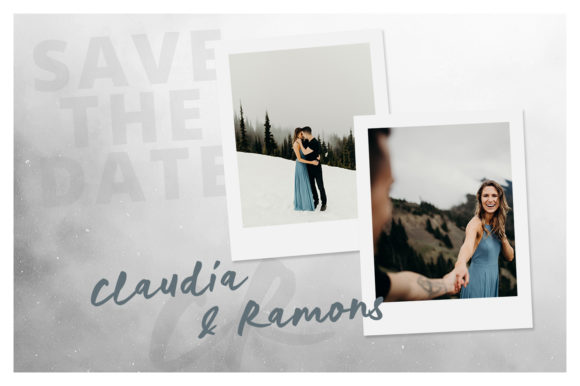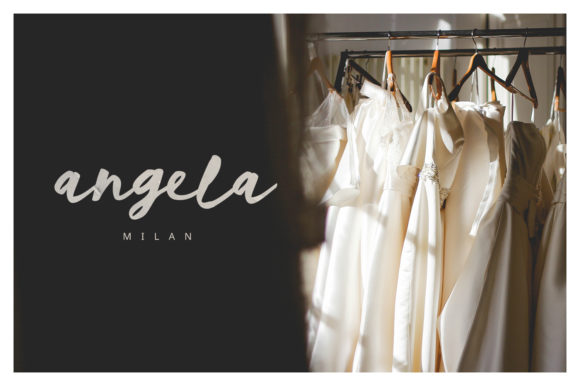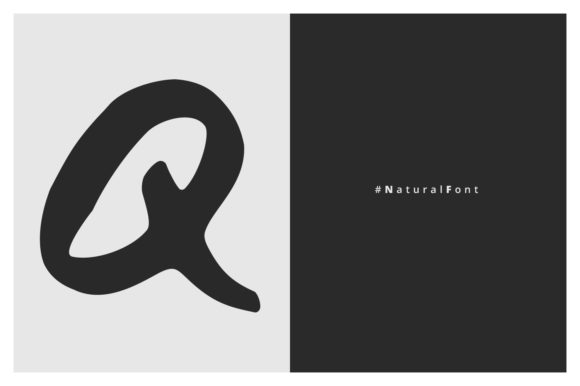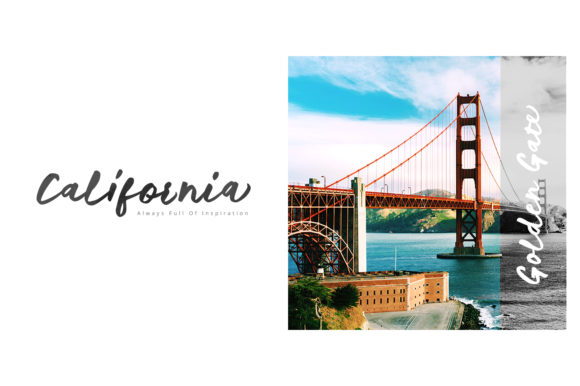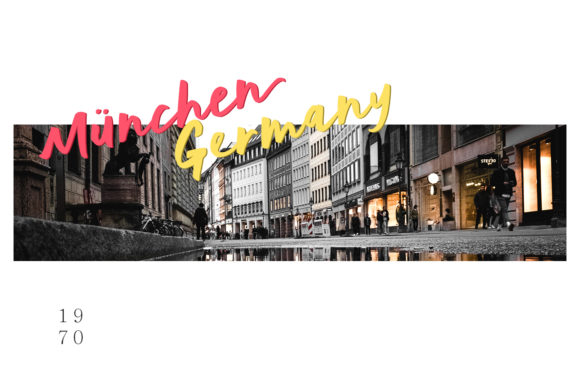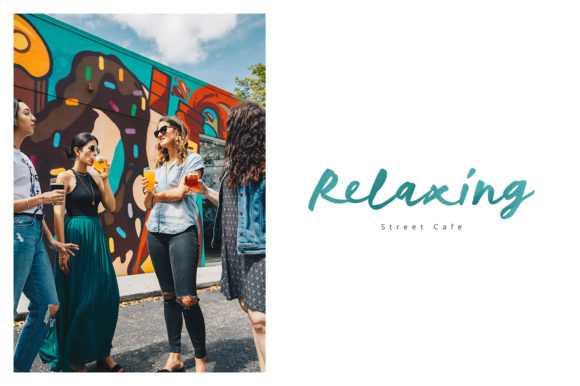
Introduction to Kelasik Font
Kelasik is a fun and playful handwritten font with a cool twist.
Get inspired by its authentic style .
Key Features of Kelasik Font
Why Choose Kelasik Font?